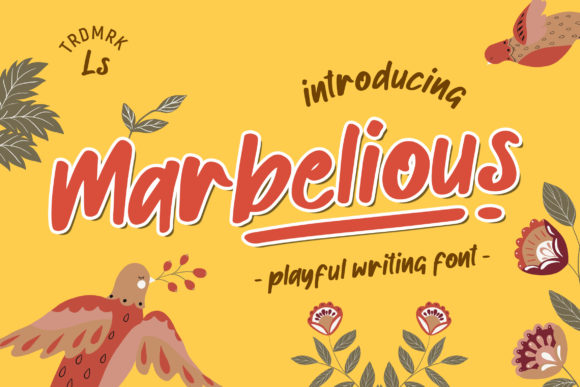
Marbelious: A Playful and Versatile Display Font
When it comes to choosing a font that can elevate your design projects, Marbelious stands out as a unique and eye-catching option. This display font is not just another addition to the ever-growing list of typographic choices—it's a versatile tool that brings personality and charm to any visual project.
The Unique Appeal of Marbelious
Marbelious is designed with a playful spirit, making it ideal for those who want their text to stand out without being too bold or too subtle. Its balanced structure ensures that it remains readable even in larger sizes, which is a rare quality in many display fonts. The font strikes a perfect middle ground between thin and thick strokes, offering a level of elegance that doesn't compromise on character.
One of the standout features of Marbelious is its varied stroke weight, which adds depth and dimension to each letter. This characteristic makes it particularly effective for logos, headlines, and other prominent text elements where visual interest is key. Whether you're designing a website, creating social media graphics, or working on print materials, Marbelious offers a fresh and modern look that feels both professional and fun.
Where Marbelious Shines
Marbelious is not limited to any specific industry or use case. It has found a home in a wide range of creative fields, from branding and advertising to web design and digital marketing. Its versatility allows it to adapt to different contexts while maintaining its distinct identity.
In branding, Marbelious can help create a memorable and approachable brand image. Its playful nature makes it an excellent choice for businesses targeting younger audiences or those looking to convey a sense of creativity and innovation. For example, a boutique clothing store or a lifestyle brand might use Marbelious in their logo or promotional materials to reflect a more casual and stylish vibe.
On the web, Marbelious works well as a heading font due to its strong visual presence. When used in combination with a more traditional body font, it can add a nice contrast and draw attention to key sections of a website. Social media platforms often benefit from this kind of dynamic typography, especially when creating eye-catching posts or banners.
Marbelious also performs exceptionally well in print media. Whether it's a magazine cover, a flyer, or a poster, the font's readability and aesthetic appeal make it a reliable choice. Its clean lines and balanced proportions ensure that it looks great in both small and large formats, making it suitable for a variety of print applications.
Practical Benefits of Using Marbelious
Choosing the right font can significantly impact the overall success of a design project. Marbelious offers several practical benefits that make it a valuable asset for designers and content creators alike.
Firstly, its readability is one of its strongest attributes. Unlike some display fonts that can be difficult to read at smaller sizes, Marbelious maintains clarity and legibility. This makes it a great choice for both digital and print projects where text needs to be easily understood by the audience.
Secondly, Marbelious is highly customizable. Designers can experiment with different weights, styles, and spacing to achieve the desired effect. This flexibility allows for greater creative control and ensures that the font can be tailored to fit the specific needs of a project.
Thirdly, the font’s aesthetic appeal contributes to a stronger visual hierarchy. By using Marbelious in key areas such as headers or call-to-action buttons, designers can guide the viewer's attention and enhance the overall user experience.
How to Use Marbelious Effectively
To get the most out of Marbelious, it's important to understand how to use it in a way that complements the rest of your design. Here are a few tips to help you incorporate this font into your projects effectively:
- Use it sparingly: While Marbelious is visually striking, it should be used in moderation to avoid overwhelming the design. Reserve it for headings, titles, and other prominent text elements.
- Pair it wisely: Combine Marbelious with a complementary body font to maintain readability and balance. For instance, pairing it with a sans-serif font like Helvetica or Arial can create a harmonious and professional look.
- Test across devices: Ensure that Marbelious looks great on all screen sizes and resolutions. Pay attention to how it renders on mobile devices, as this can affect the overall user experience.
- Consider the context: Think about the purpose and audience of your project before deciding to use Marbelious. It may not be the best choice for formal or academic settings, but it can shine in more casual and creative environments.
By following these guidelines, you can maximize the potential of Marbelious and ensure that it enhances rather than detracts from your design.
Whether you're crafting a logo, designing a website, or creating print materials, Marbelious has the potential to elevate your work and leave a lasting impression. By understanding its strengths and limitations, you can use this font to its fullest extent and create designs that are both beautiful and effective.